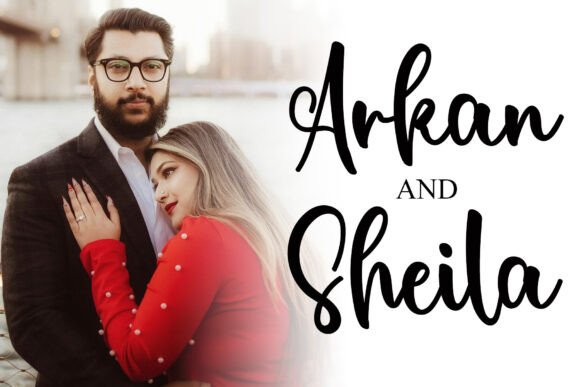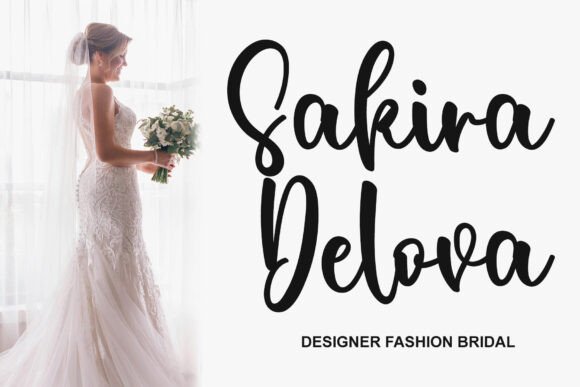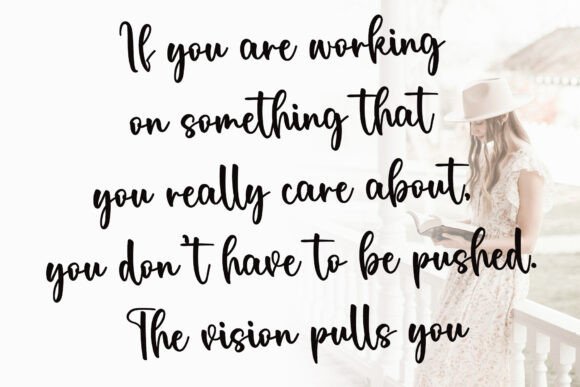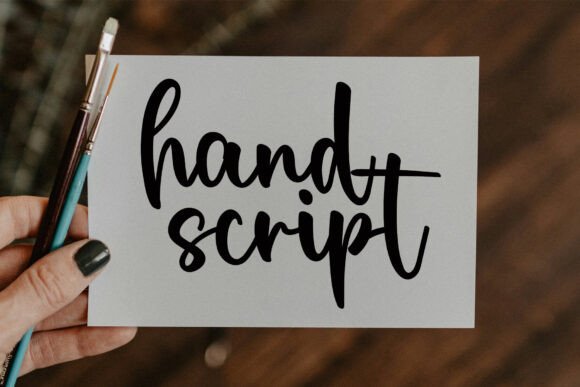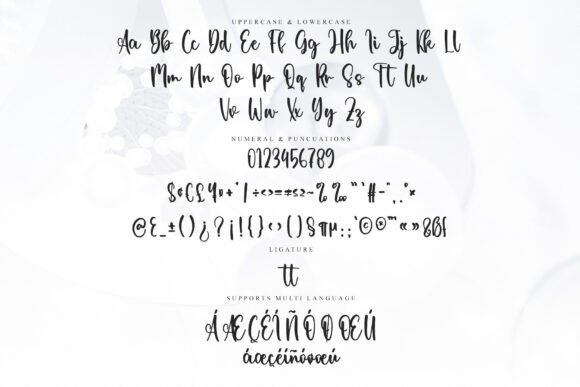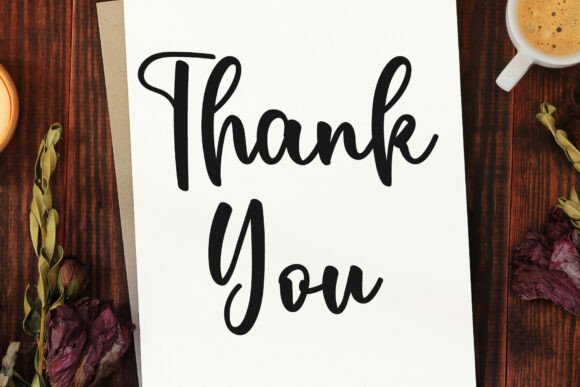
Love at First Sight: Discover the Magic of Brilliant Valentines Font
There’s nothing quite like the thrill of brainstorming a new design project – the blank page, the endless possibilities, and the excitement of bringing your vision to life. For many of us, this feeling is the spark that ignites our creative passion, driving us to experiment and innovate. And what better way to express that passion than with a font that speaks directly to the heart?
Enter Brilliant Valentines Font, a delicate, elegant, and flowing handwritten font designed to capture the essence of love and romance. With its incredibly distinct and timeless style, this font is the perfect tool for creating spectacular designs that leave a lasting impression. Whether you’re a professional designer or a DIY enthusiast, Brilliant Valentines Font is a valuable addition to your creative arsenal, offering unparalleled flexibility and expression.
Brilliant Valentines Font Key Features
- Font Size: 1,032 glyphs, including Latin, Cyrillic, and Greek alphabets
- Unique Characteristics: Hand-drawn, cursive script with elegant and romantic feel, perfect for Valentine’s Day and other love-themed designs
- Font Style: Script, cursive, and handwritten styles available, ideal for titles, headings, and short paragraphs
Brilliant Valentines Font Review
Overall, I think the Brilliant Valentines Font is a cute and playful addition to any Valentine’s Day project. Here are some things that work well: ✨
- The font’s whimsical design makes it perfect for creating a lighthearted and romantic atmosphere.
- The font includes a wide range of characters, including punctuation marks and special symbols.
- The font may not be suitable for formal or professional projects, as it can come across as too playful or juvenile.
Overall, I would give the Brilliant Valentines Font 4 out of 5 stars. It’s a great choice for anyone looking to add a touch of romance and whimsy to their projects. Just be sure to consider the potential limitations before using it.
The Brilliant Valentines Font is perfect for creating romantic and whimsical designs for Valentine’s Day, weddings, and anniversaries.
- Creating custom invitations and greeting cards.
- Designing romantic gift tags and labels.
- Adding a touch of elegance to wedding stationery and decor.
Alternatives to Brilliant Valentines Font for Designers
Great Vibes Font is a beautiful, modern script font that is perfect for creating a romantic and elegant look. It features a flowing, handwritten style that is ideal for wedding invitations, Valentine’s Day cards, and other romantic designs. Unlike Brilliant Valentines Font, Great Vibes Font has a more subtle and refined feel, making it suitable for a wide range of designs.
Carolyna Pro Font is a luxurious, high-end font that is perfect for creating a sophisticated and elegant look. It features a classic, serif style with a touch of modern flair, making it ideal for high-end designs, luxury brands, and romantic invitations. While Brilliant Valentines Font is more playful and casual, Carolyna Pro Font is more formal and refined.
Alex Brush Font is a beautiful, handwritten font that features a unique, brush-style script. It is perfect for creating a personal and intimate look, making it ideal for wedding invitations, love letters, and other romantic designs. Unlike Brilliant Valentines Font, Alex Brush Font has a more organic and hand-drawn feel, making it suitable for designs that require a touch of personality.
Dancing Script Font is a beautiful, elegant script font that is perfect for creating a romantic and whimsical look. It features a flowing, handwritten style with a touch of flair, making it ideal for wedding invitations, Valentine’s Day cards, and other romantic designs. While Brilliant Valentines Font is more playful and casual, Dancing Script Font is more refined and sophisticated.